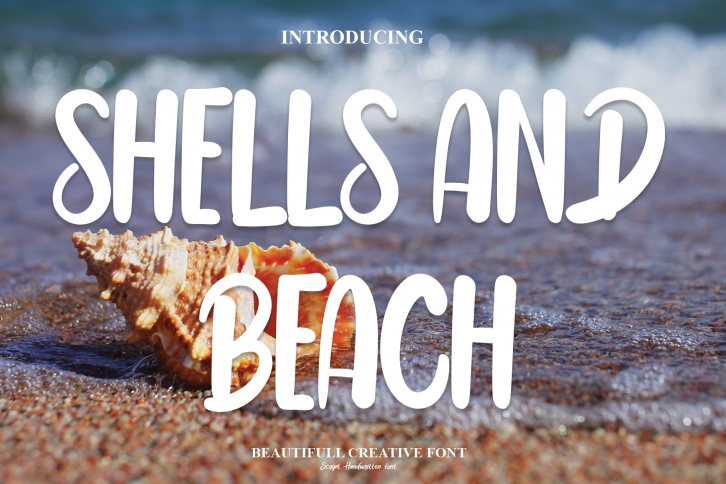
Shells and Beach is a simple, unique and adaptable handwritten font. You can successfully add this elegant font to your wedding invitations, business cards, greeting cards, social media posts, wall art and much more.